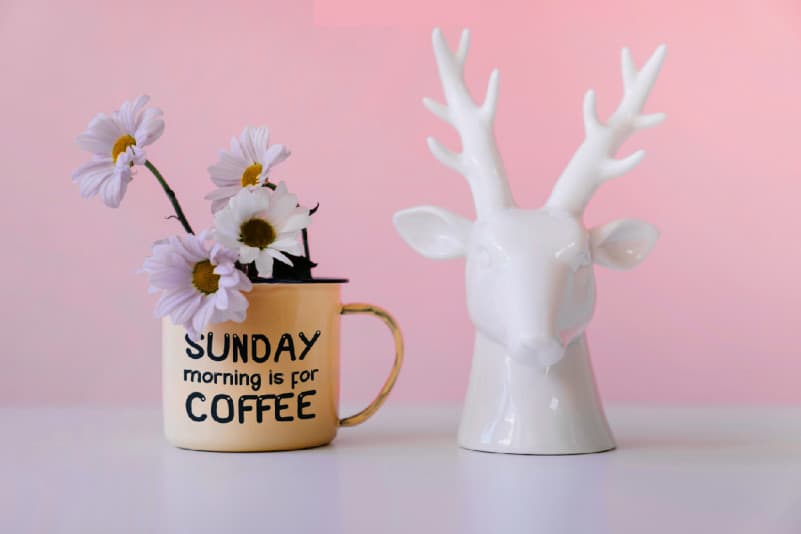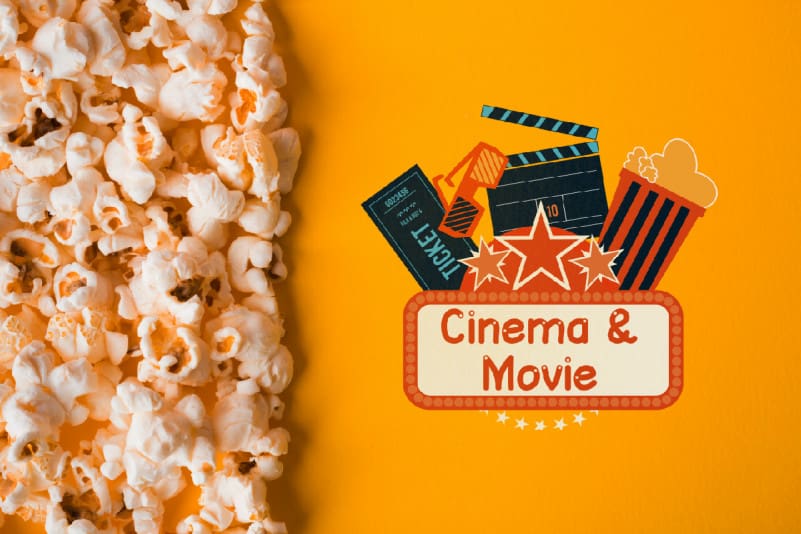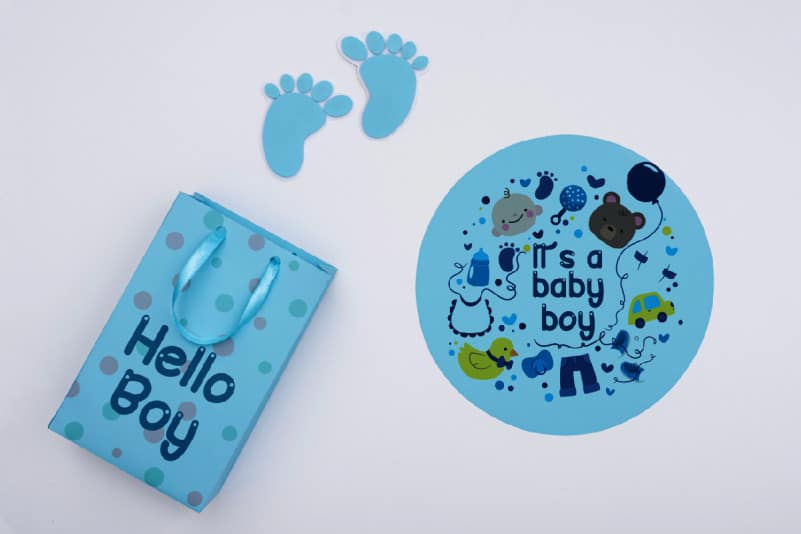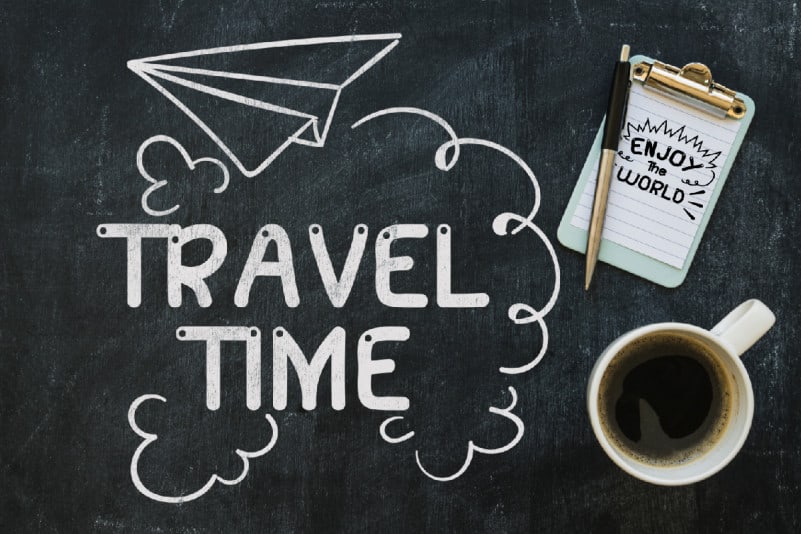
Magic Baloon Display Font
Magic Baloon Display Font includes full set of Characters, Numerals and Punctuation. Also it contains ligatures to make it flowless that add more aesthetic fonts to perfect your extraordinary project. This font will be great for musical, school, teacher, student, kindergarten, drama, movie etc
Magic Baloon Display Font is perfect for many projects including : Flyer, headings, logos, branding design, quotes, products, cards, stationery, invitations and more! Be a unique in a minute and start creating today!